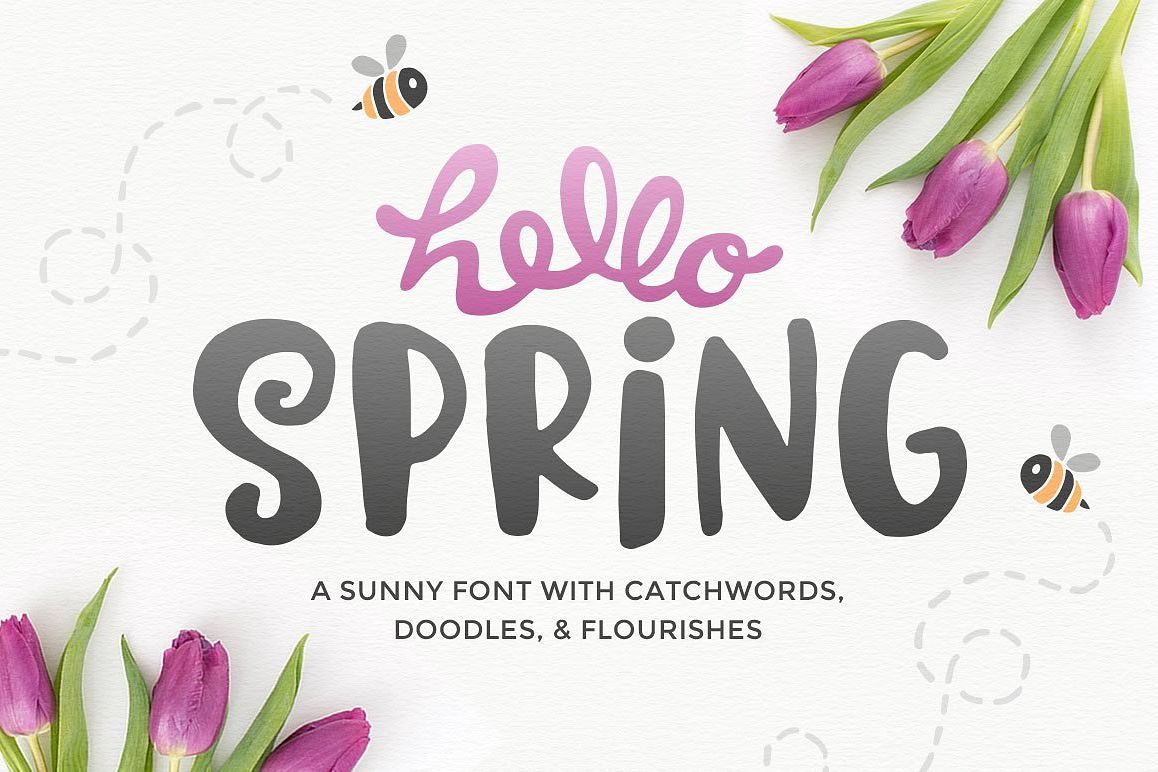
Hello Spring Font
Baby animals, flowers blooming, birds chirping, it's in the air: Hello Spring! An adorable new font that comes with catchwords, doodles, and flourishes to help give your projects that special touch.